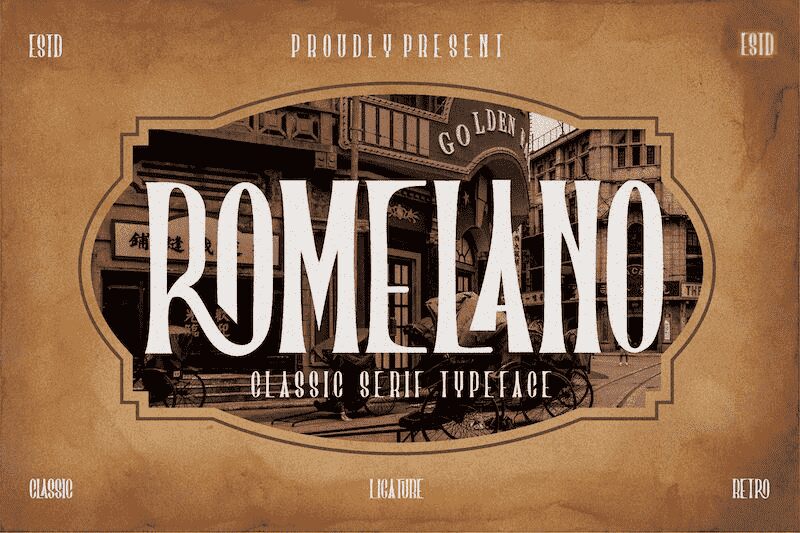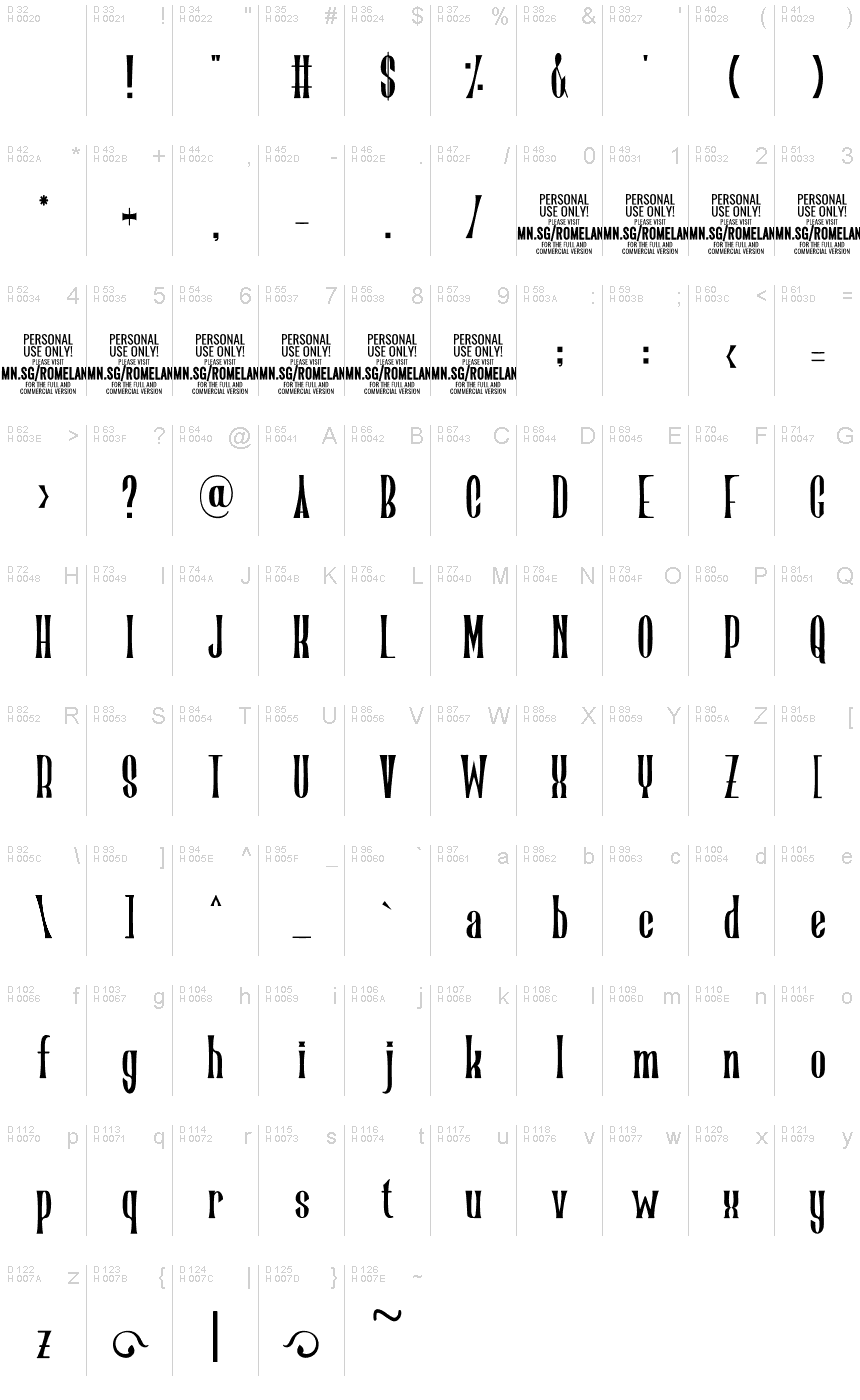
Romelano PERSONAL USE Regular
Romelano, designed by the talented Mans Greback, is a captivating display font that effortlessly blends retro charm with modern aesthetics. Its extra-condensed width adds a touch of uniqueness to any project, making it perfect for eye-catching headlines, logos, and branding materials. With its vintage-inspired style, Romelano lends itself to a wide range of creative endeavors – from album covers and posters to packaging designs and website headers. Let this remarkable font be the bold statement your project deserves and watch it come alive with nostalgic flair.
Use characters { } to make decorative elements.
Example: {Beautiful}